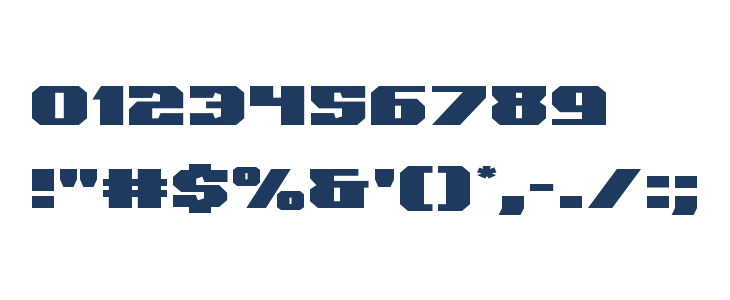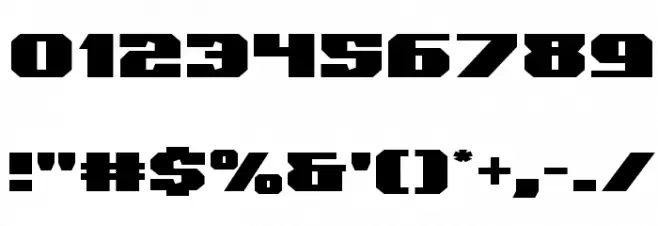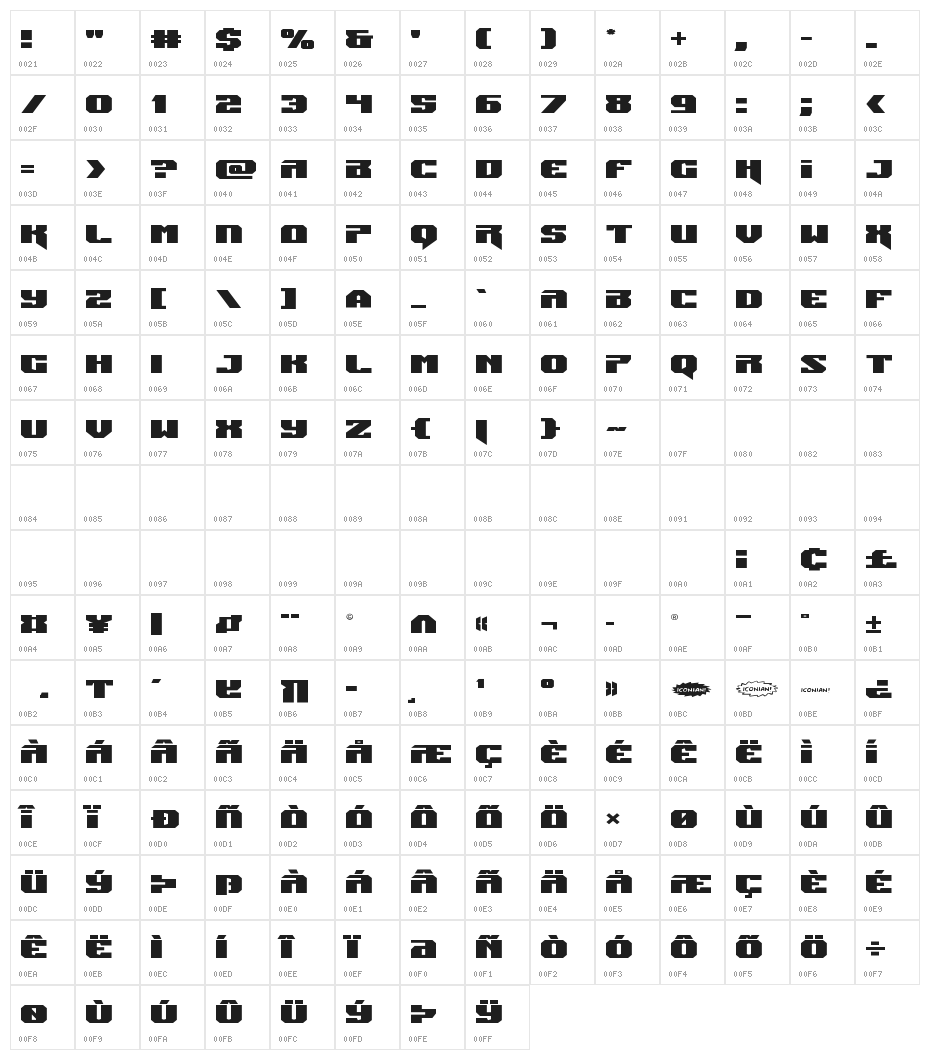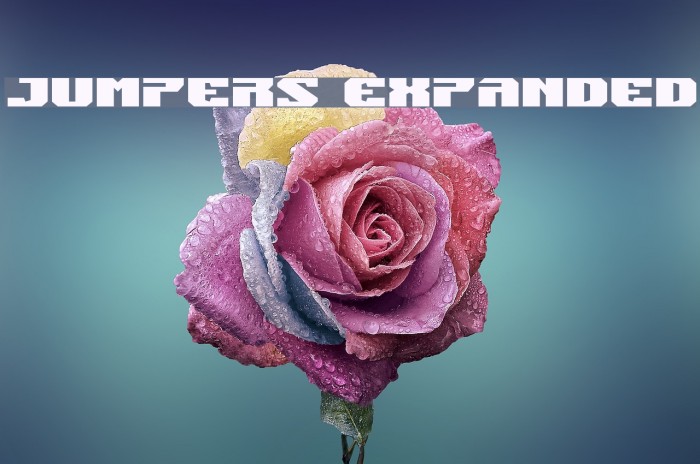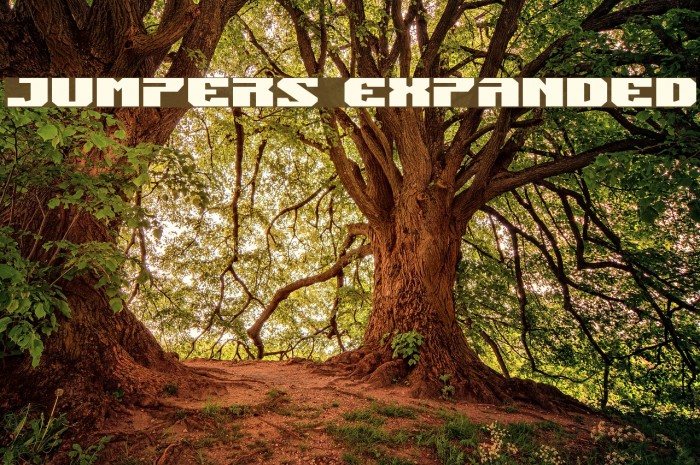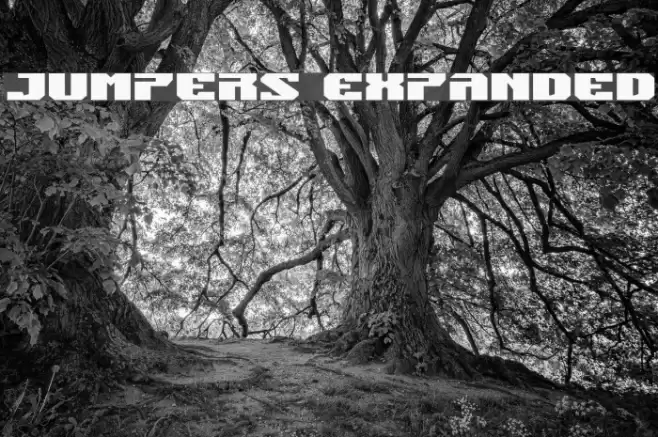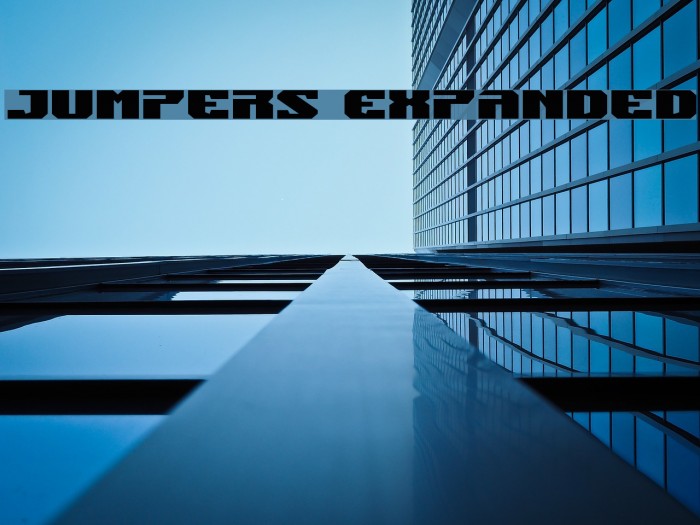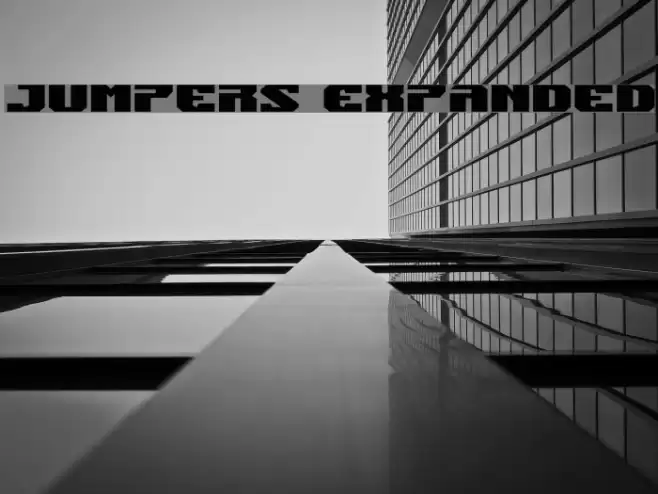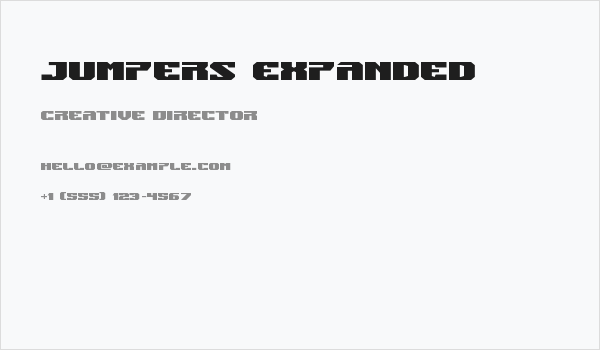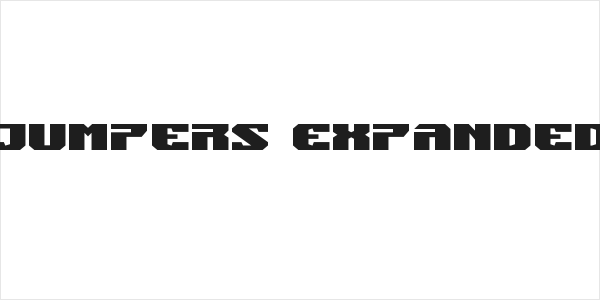
Jumpers Expanded Font
Jumpers Expanded Description
This font features a bold, geometric design with sharp angles and a blocky appearance. The characters are uniform in height and width, creating a cohesive and structured look. The uppercase letters are particularly striking, with a futuristic and industrial feel. The lowercase letters maintain the same boldness, ensuring readability while adding a touch of uniqueness. Numbers and special characters are consistent with the overall style, making them suitable for a variety of applications. The font's strong presence makes it ideal for attention-grabbing designs.
| Proposed Projects | Ideal for posters, logos, video game graphics, and branding materials that require a strong, modern aesthetic. |